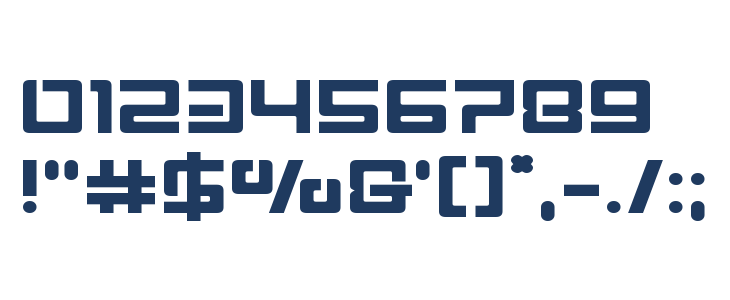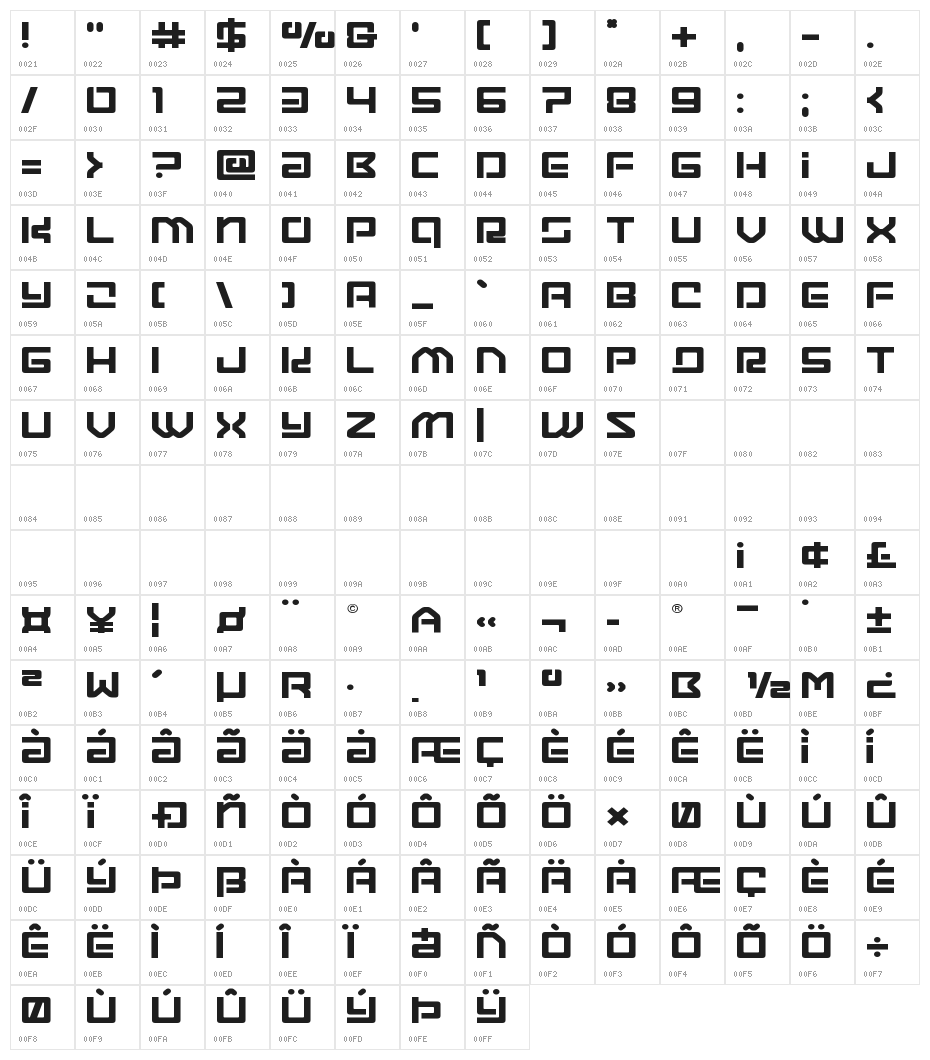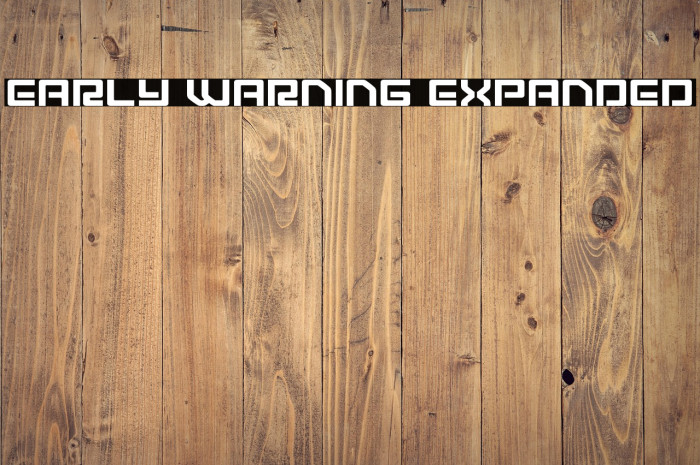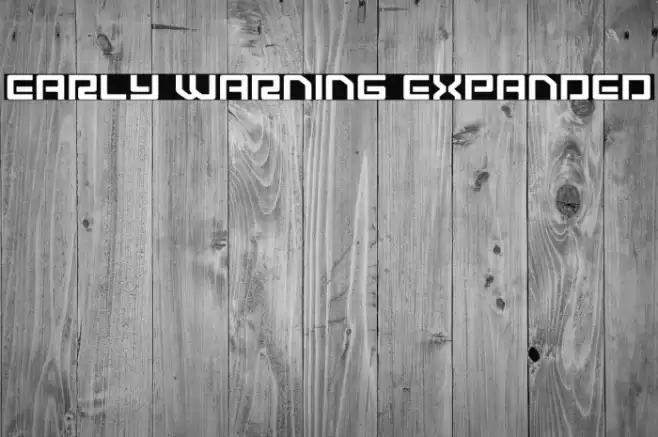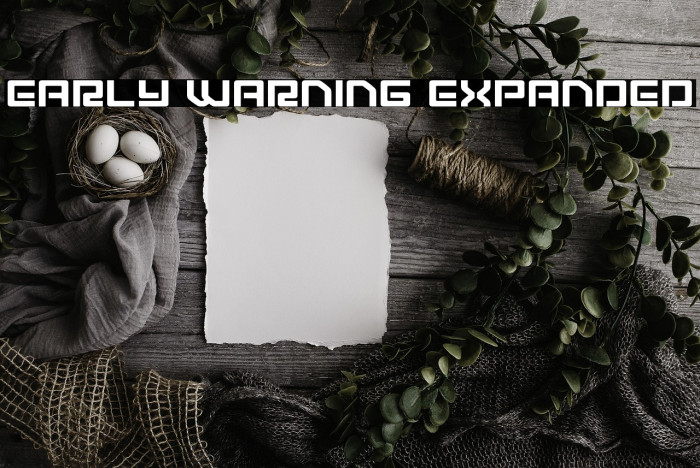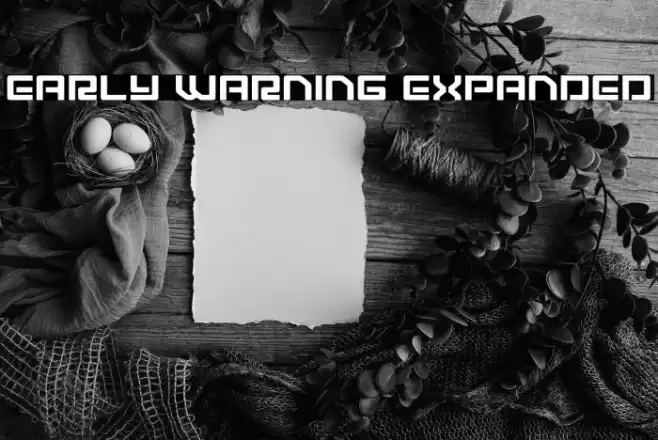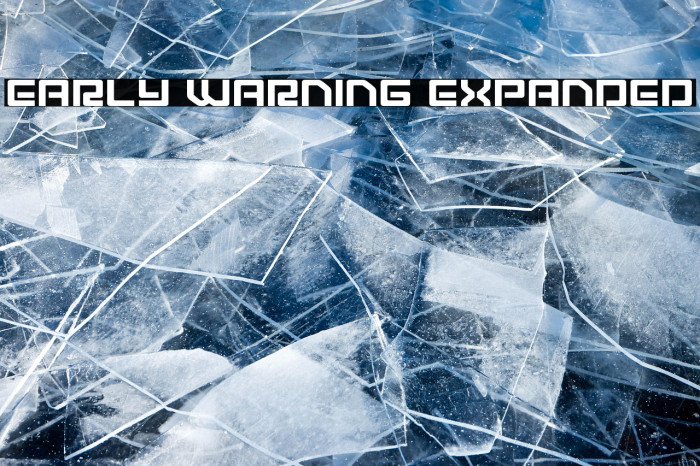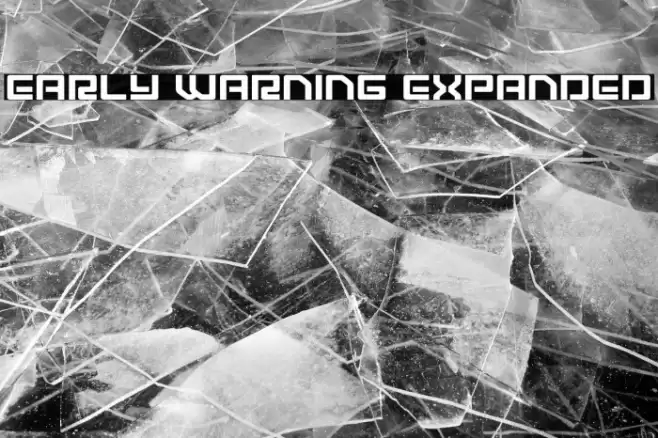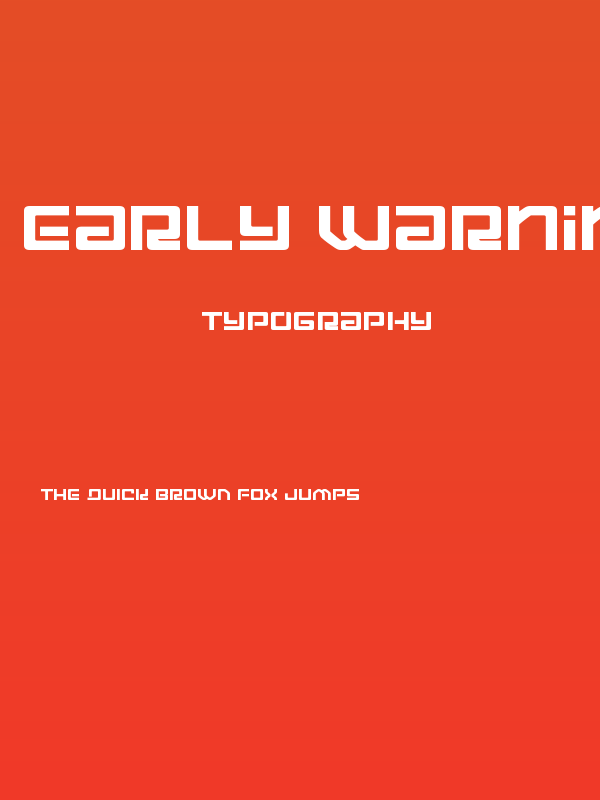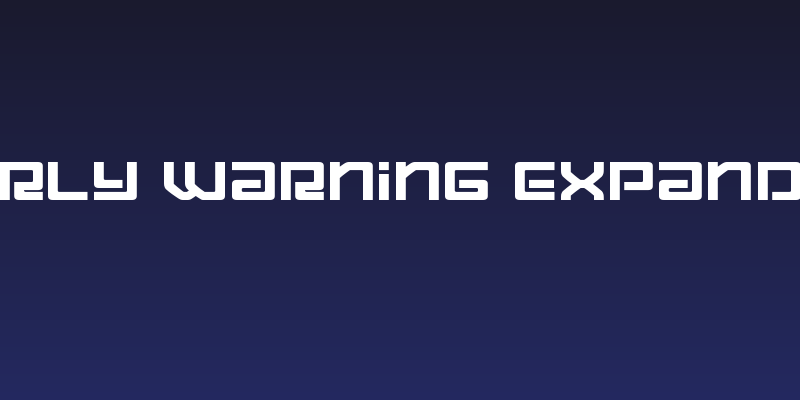
Early Warning Expanded Font
Early Warning Expanded Description
This font features a bold, geometric design with a futuristic and technical appearance. The characters are constructed with uniform stroke widths, creating a consistent and solid look. The uppercase and lowercase letters share similar heights, enhancing the uniformity and modern aesthetic. The angular and blocky shapes give it a strong presence, making it ideal for attention-grabbing headlines or branding. The numbers and special characters maintain the same bold and structured style, ensuring cohesion across all text elements.
| Proposed Projects | Ideal for technology branding, sci-fi themed designs, video game interfaces, and modern advertising. |